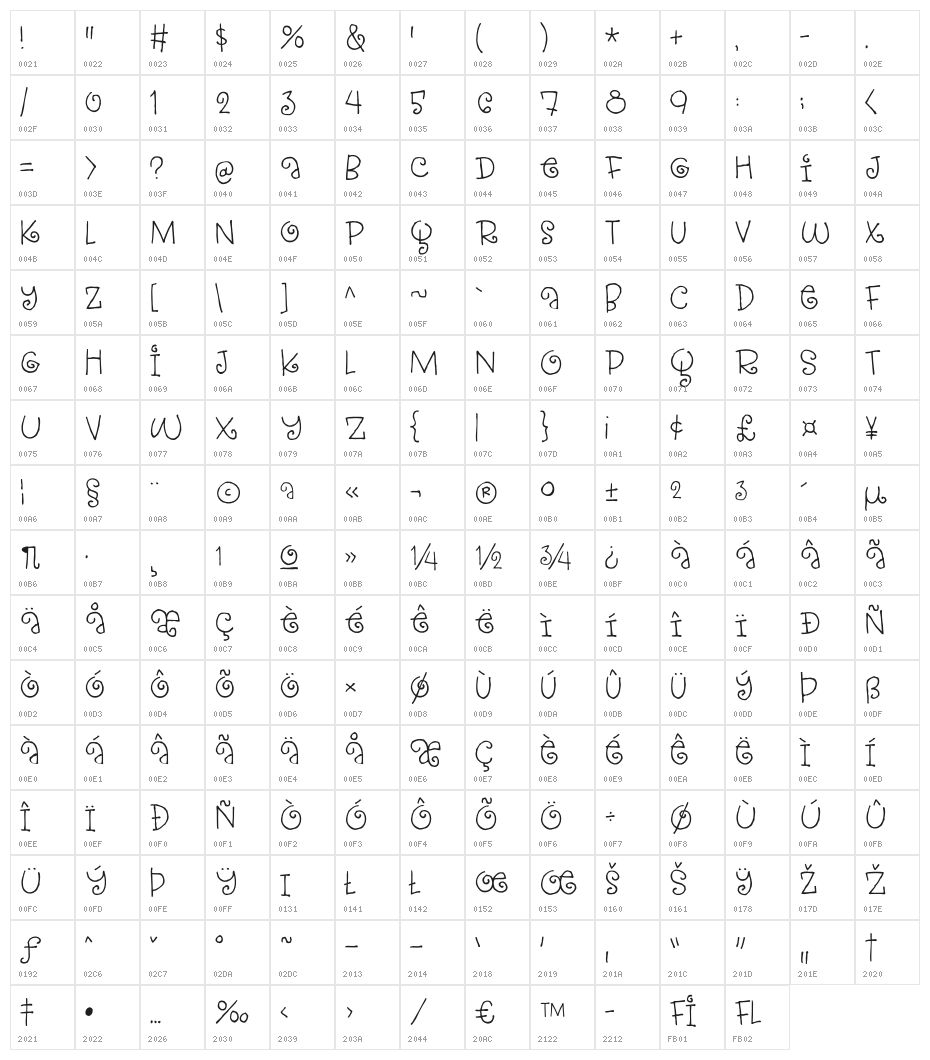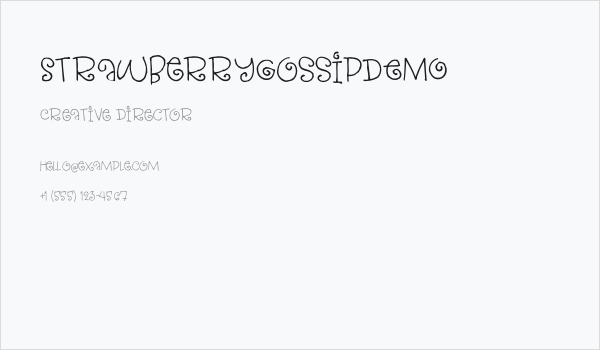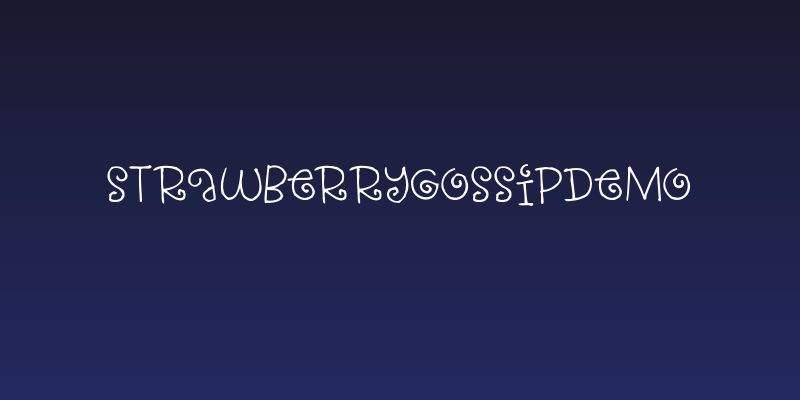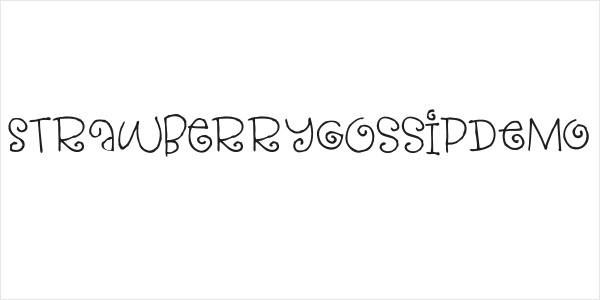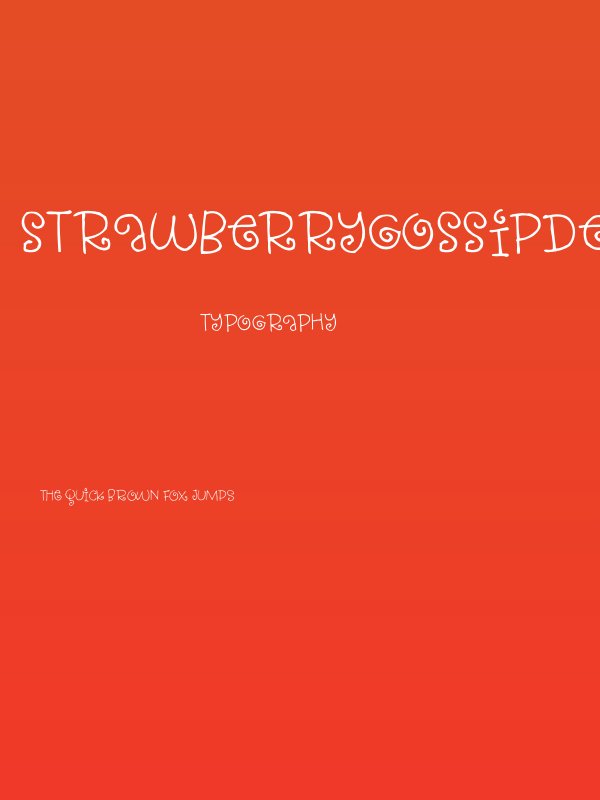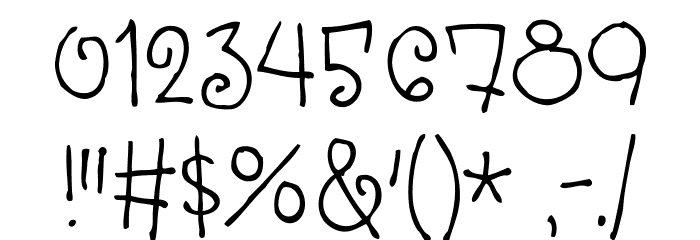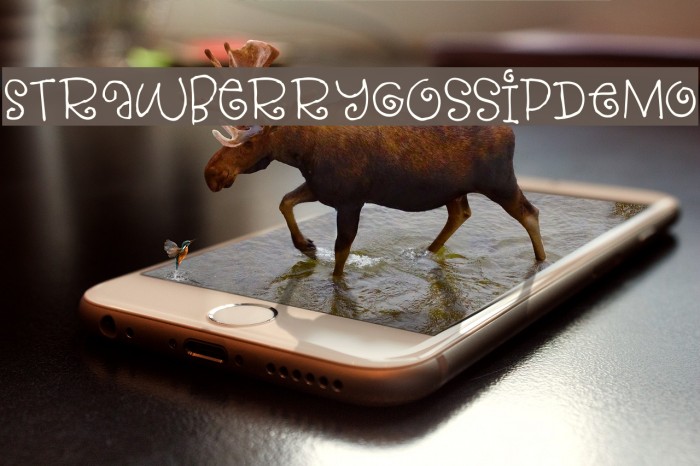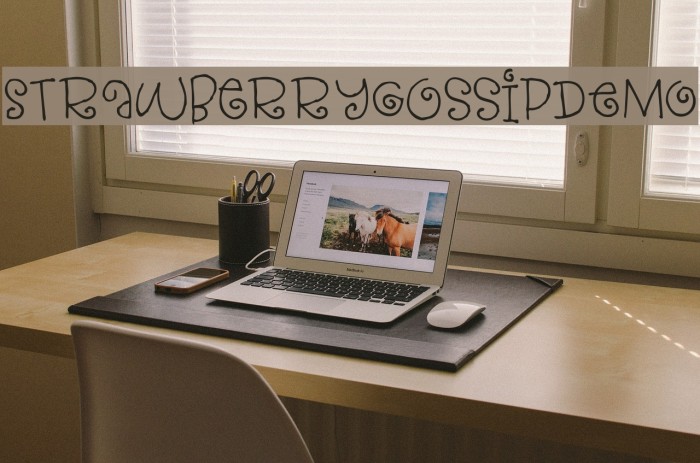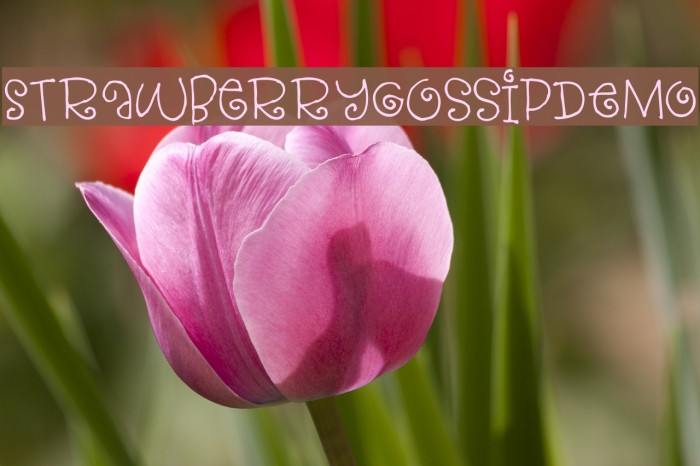
StrawberryGossipDEMO Font
StrawberryGossipDEMO Description
This playful and whimsical font features a unique and quirky design with a hand-drawn aesthetic. Each character is crafted with a sense of fun, incorporating swirls and curls that add a lively and dynamic feel. The letters have a slightly uneven baseline, enhancing the casual and informal style. The font's strokes are moderately thick, providing good legibility while maintaining its decorative charm. Perfect for projects that require a touch of creativity and personality, this font stands out with its distinctive and artistic flair.
| Overall Style | Whimsical |
| Proposed Projects | Ideal for children's books, greeting cards, playful branding, and creative posters. |